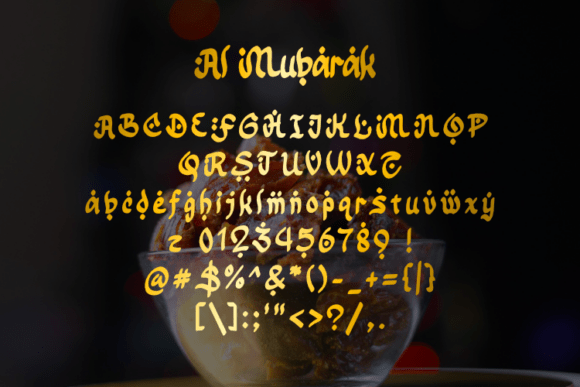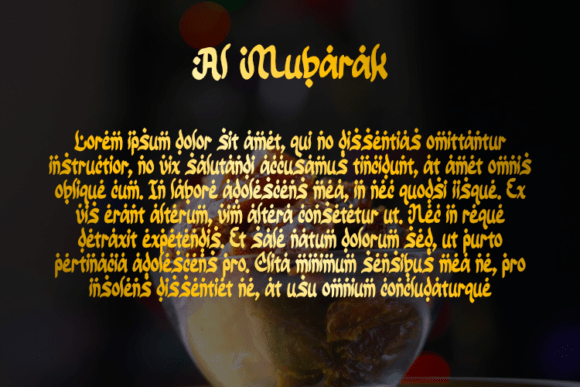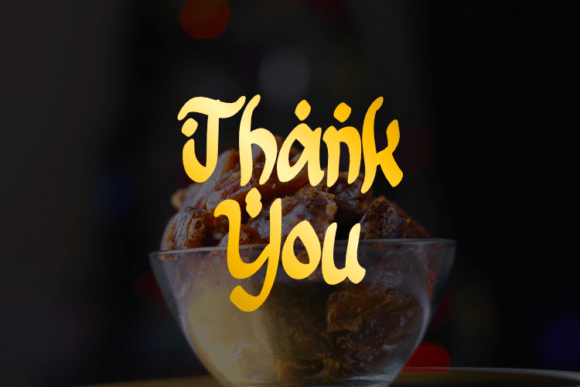
Unveiling Al Mubarak Font: Elevate Your Designs with Precision and Aesthetics
In the realm of design, the right font can make all the difference. It can elevate your creations, convey your message, and leave a lasting impression on your audience. Introducing Al Mubarak Font, a distinctively versatile typeface that effortlessly adds flair to your designs. Whether you’re working on clothing, t-shirts, or a variety of other products, this font’s clean lines and striking aesthetics breathe life into all creations.
What Sets Al Mubarak Apart
Al Mubarak Font is not just another addition to the vast sea of typefaces. Its unique blend of precision and aesthetics sets it apart, making it a valuable asset for designers and crafters alike. Here are a few key features that make Al Mubarak a standout choice:
- Clean Lines and Striking Aesthetics: The font boasts clean, crisp lines that provide a modern and sophisticated look. Its striking aesthetics ensure that your designs stand out, capturing the attention of your audience.
- Versatility: Al Mubarak is incredibly versatile, making it suitable for a wide range of design projects. From clothing and t-shirts to posters, flyers, and digital content, this font adapts seamlessly to various mediums.
Precision Meets Aesthetics
The creators of Al Mubarak Font have meticulously crafted each letterform to ensure that it not only looks great but also functions well across different design contexts. The font’s design strikes a perfect balance between precision and aesthetics, resulting in a typeface that is both beautiful and highly legible.
This balance is crucial for designers who need to convey messages clearly and effectively. With Al Mubarak, you can rest assured that your text will be easy to read, while also adding a touch of elegance and sophistication to your designs.
Tailoring a Unique Experience for Your Design Needs
Every designer knows that finding the right font can be a game-changer. Al Mubarak Font is designed to cater to a wide range of design needs, offering a unique experience that can elevate your projects. Here are a few ways Al Mubarak can enhance your design workflow:
- Creativity: The font’s versatility and striking aesthetics inspire creativity. Whether you’re working on a branding project, creating merchandise, or designing digital content, Al Mubarak provides the perfect foundation for your creative vision.
- Consistency: For brands and businesses, consistency is key. Al Mubarak can help you maintain a consistent visual identity across different platforms and materials, reinforcing your brand’s message and aesthetic.
Al Mubarak Font is more than just a typeface; it’s a design tool that can elevate your creations and streamline your workflow. Its unique blend of clean lines, striking aesthetics, and versatility makes it an invaluable asset for designers and crafters. By choosing Al Mubarak, you’re not just selecting a font; you’re investing in a design experience that combines precision with aesthetics. Unlock the full potential of your designs with Al Mubarak Font and discover a world where typography meets creativity.